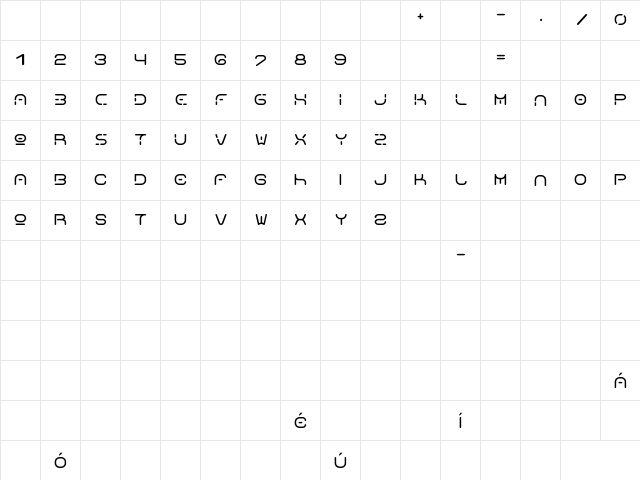
r ri Regula
Design Context for r ri Typeface
r ri is a composed and adaptable typeface that performs quietly and consistently across a wide range of design contexts.